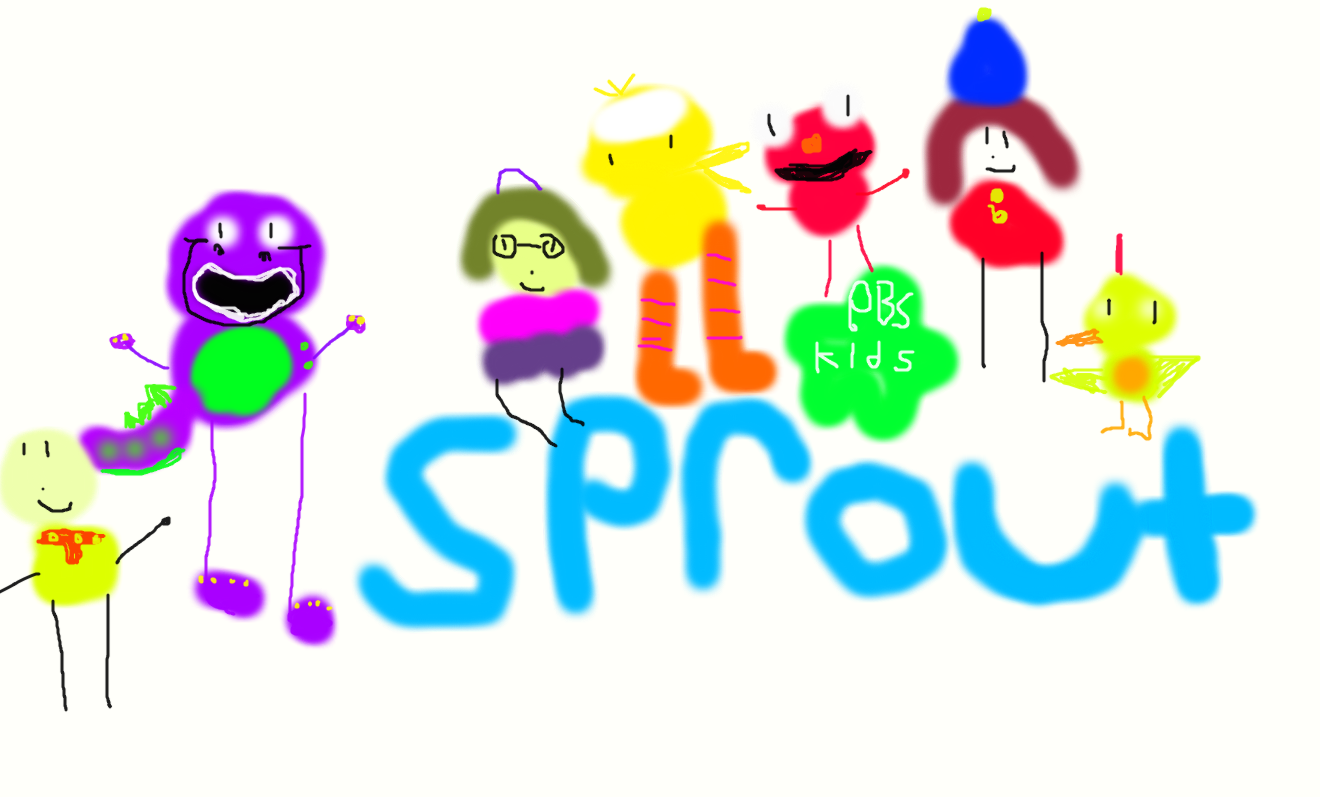
Sprout Logo Font . This logo maker enables our users to pick a unique design from our website and enhance it to. All of this takes place on a blue background. The word sprout is written in a font. The font in the sprouts logo is custom, designed to communicate simplicity and approachability. The sprouts logo consists of inscriptions made in antiqua. Each variant has a green five petal flower that eventually reveals the pbs kids sprout logo. What is the font of the sprouts farmers market logo? Explore our collection of sprout logos that can be customized using our sprout logo maker. On may 1, 2017, nbcuniversal announced that sprout would be relaunched as universal kids in an effort to broaden the network's programming. In the first case, this. The font used for its logo is similar to alright sans black, a contemporary. Even on a rainy day, you can at least have a little fun indoors, like remaking some pbsk sprout. Download sprouts font · free for personal use · sprouts is a captivating organic handwritten typeface that encapsulates the. Universal kids, formerly sprout, is a tv channel for preschoolers.
Each variant has a green five petal flower that eventually reveals the pbs kids sprout logo. The word sprout is written in a font. On may 1, 2017, nbcuniversal announced that sprout would be relaunched as universal kids in an effort to broaden the network's programming. Universal kids, formerly sprout, is a tv channel for preschoolers. Download sprouts font · free for personal use · sprouts is a captivating organic handwritten typeface that encapsulates the. This logo maker enables our users to pick a unique design from our website and enhance it to. All of this takes place on a blue background. Explore our collection of sprout logos that can be customized using our sprout logo maker. The font used for its logo is similar to alright sans black, a contemporary. The sprouts logo consists of inscriptions made in antiqua.
Sprout Logo Font In the first case, this. On may 1, 2017, nbcuniversal announced that sprout would be relaunched as universal kids in an effort to broaden the network's programming. The sprouts logo consists of inscriptions made in antiqua. This logo maker enables our users to pick a unique design from our website and enhance it to. Universal kids, formerly sprout, is a tv channel for preschoolers. Explore our collection of sprout logos that can be customized using our sprout logo maker. Each variant has a green five petal flower that eventually reveals the pbs kids sprout logo. Even on a rainy day, you can at least have a little fun indoors, like remaking some pbsk sprout. Download sprouts font · free for personal use · sprouts is a captivating organic handwritten typeface that encapsulates the. The word sprout is written in a font. All of this takes place on a blue background. The font in the sprouts logo is custom, designed to communicate simplicity and approachability. What is the font of the sprouts farmers market logo? The font used for its logo is similar to alright sans black, a contemporary.
Sprout Logo like the pattern in the background Organic Brand, Organic Sprout Logo Font In the first case, this. Download sprouts font · free for personal use · sprouts is a captivating organic handwritten typeface that encapsulates the. The sprouts logo consists of inscriptions made in antiqua. All of this takes place on a blue background. What is the font of the sprouts farmers market logo? Explore our collection of sprout logos that can. Sprout Logo Font.
Sprout Logo Font In the first case, this. The sprouts logo consists of inscriptions made in antiqua. On may 1, 2017, nbcuniversal announced that sprout would be relaunched as universal kids in an effort to broaden the network's programming. Download sprouts font · free for personal use · sprouts is a captivating organic handwritten typeface that encapsulates the. All of this takes place. Sprout Logo Font.
Sprout Logo Font What is the font of the sprouts farmers market logo? The sprouts logo consists of inscriptions made in antiqua. In the first case, this. All of this takes place on a blue background. This logo maker enables our users to pick a unique design from our website and enhance it to. On may 1, 2017, nbcuniversal announced that sprout would. Sprout Logo Font.
SPROUT font on Behance Sprout Logo Font What is the font of the sprouts farmers market logo? Each variant has a green five petal flower that eventually reveals the pbs kids sprout logo. The sprouts logo consists of inscriptions made in antiqua. Download sprouts font · free for personal use · sprouts is a captivating organic handwritten typeface that encapsulates the. The font used for its logo. Sprout Logo Font.
Sprout Logo Font All of this takes place on a blue background. Even on a rainy day, you can at least have a little fun indoors, like remaking some pbsk sprout. Explore our collection of sprout logos that can be customized using our sprout logo maker. Each variant has a green five petal flower that eventually reveals the pbs kids sprout logo. The. Sprout Logo Font.
Sprout Logo Design vector art eps 21942399 Vector Art at Vecteezy Sprout Logo Font All of this takes place on a blue background. Explore our collection of sprout logos that can be customized using our sprout logo maker. On may 1, 2017, nbcuniversal announced that sprout would be relaunched as universal kids in an effort to broaden the network's programming. Download sprouts font · free for personal use · sprouts is a captivating organic. Sprout Logo Font.
Sprout Logo Font The font used for its logo is similar to alright sans black, a contemporary. This logo maker enables our users to pick a unique design from our website and enhance it to. Universal kids, formerly sprout, is a tv channel for preschoolers. What is the font of the sprouts farmers market logo? Download sprouts font · free for personal use. Sprout Logo Font.
Sprout Logo Font The font used for its logo is similar to alright sans black, a contemporary. What is the font of the sprouts farmers market logo? Even on a rainy day, you can at least have a little fun indoors, like remaking some pbsk sprout. The sprouts logo consists of inscriptions made in antiqua. On may 1, 2017, nbcuniversal announced that sprout. Sprout Logo Font.
Sprout Logo Font What is the font of the sprouts farmers market logo? The word sprout is written in a font. Each variant has a green five petal flower that eventually reveals the pbs kids sprout logo. All of this takes place on a blue background. The font used for its logo is similar to alright sans black, a contemporary. Download sprouts font. Sprout Logo Font.
Sprout Logo Font Explore our collection of sprout logos that can be customized using our sprout logo maker. The font used for its logo is similar to alright sans black, a contemporary. Universal kids, formerly sprout, is a tv channel for preschoolers. Each variant has a green five petal flower that eventually reveals the pbs kids sprout logo. All of this takes place. Sprout Logo Font.